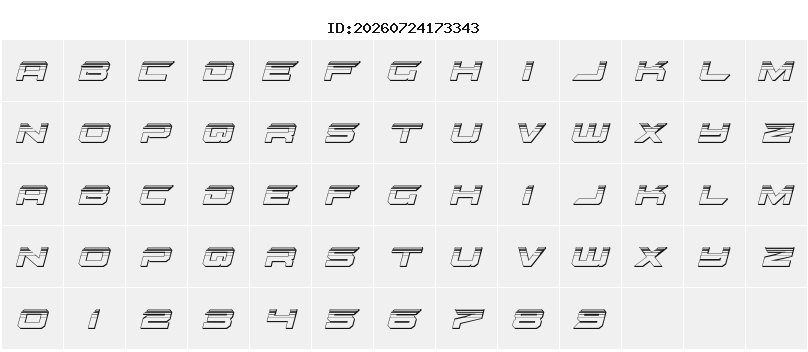
• Font Name: Gypsy Killer Platinum Italic
• Full Font Name: Gypsy Killer Platinum Italic
About Gypsy Killer Platinum Italic.ttf
Gypsy Killer Platinum Italic.ttf is a modern, elegant sans-serif font designed for ultimate readability and visual harmony. Perfect for branding, headlines, web design, and print materials.